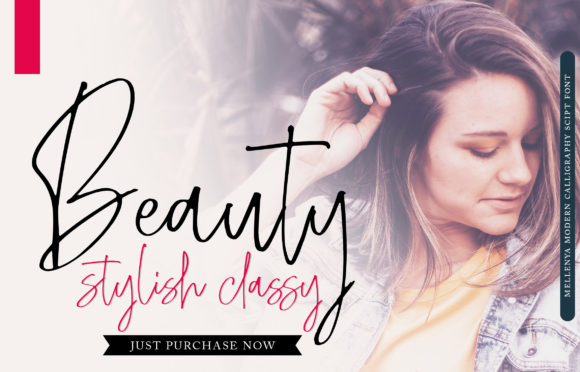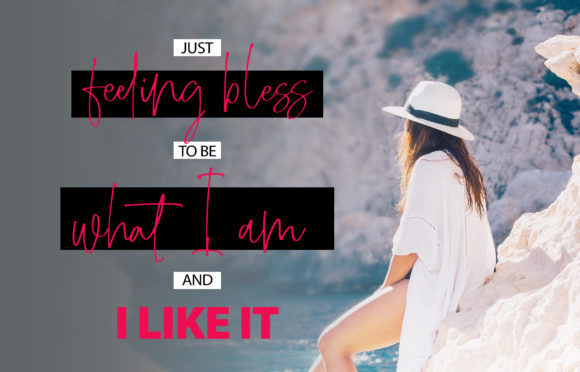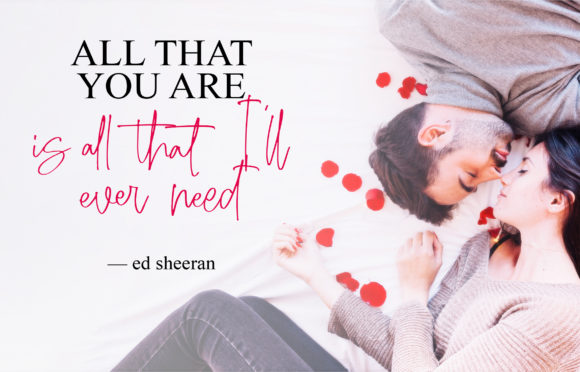
Introduction to Mellenya Font
Mellenya is a timeless and relaxed handwritten font.
Its versatile style makes it fit for both formal and non-formal events This font is PUA encoded which means you can access all of the glyphs and swashes with ease.
Key Features of Mellenya Font